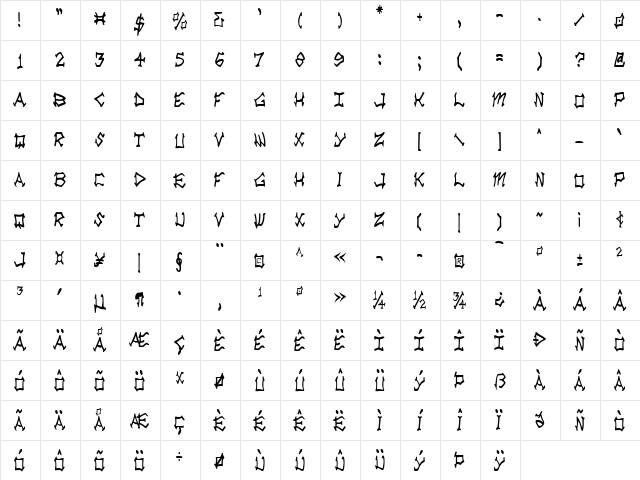
Rad Zad Condensed
Design Context for Rad Zad Condensed Typeface
Rad Zad Condensed is a composed and adaptable typeface that performs quietly and consistently across a wide range of design contexts. The condensed width makes it efficient for tight spaces without sacrificing legibility.